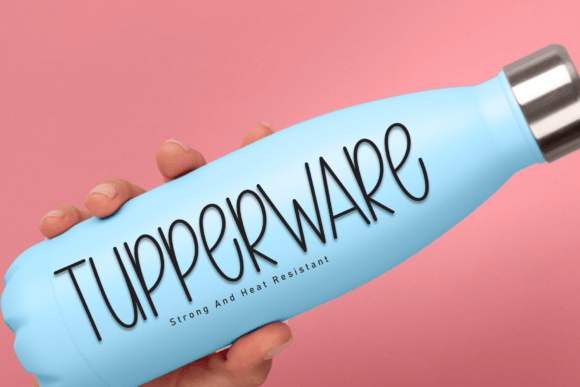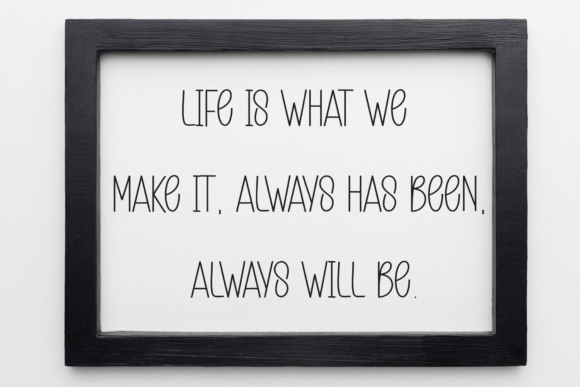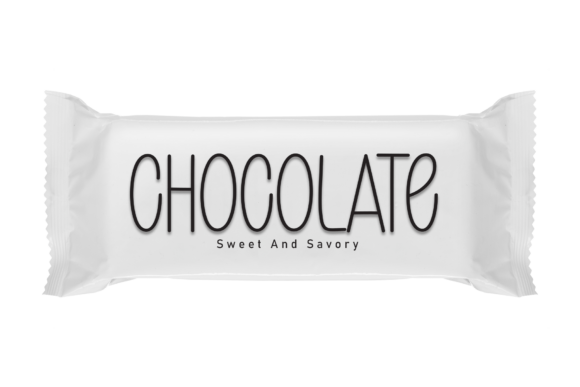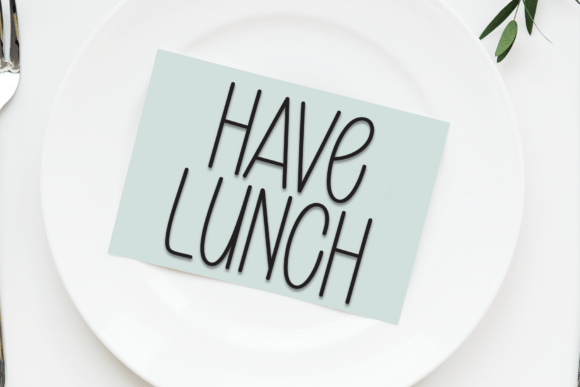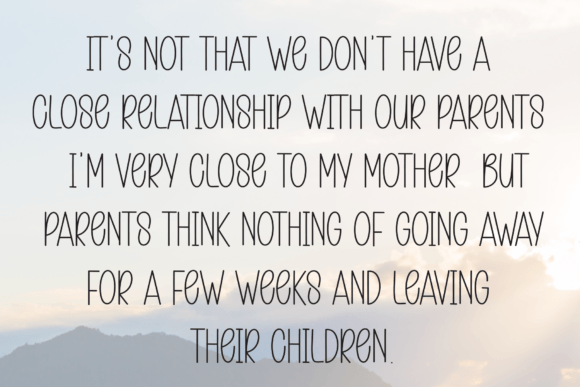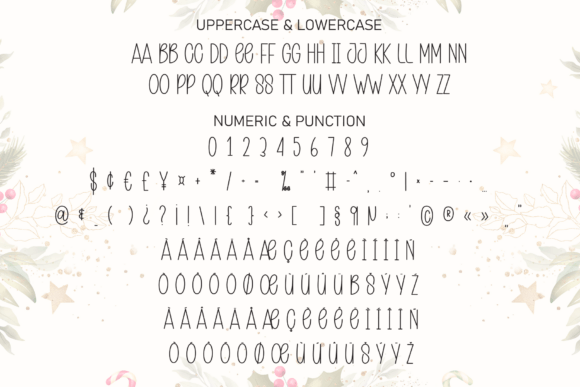
Introducing December Font: A Delightful Handwritten Display Font
Are you looking for a font that embodies charm and fun? Do you want to add a sprinkle of joy to your designs? Look no further than December Font, a delightful and approachable handwritten display font that’s perfect for crafting enchanting wedding invitations, cards, and countless other designs.
What is December Font?
December Font is a beautifully designed handwritten display font that’s sure to capture the hearts of designers and crafters alike. Its lovable style makes it the perfect companion for creating designs that demand a personal touch. Whether you’re working on a wedding invitation, a greeting card, or any other project that requires a dash of personality, December Font is the perfect choice.
Key Features of December Font
- Handwritten style: December Font boasts a beautiful handwritten style that’s both elegant and playful.
- Delightful and approachable: The font’s lovable style makes it perfect for creating designs that are charming and fun.
- Perfect for wedding invitations and cards: December Font is ideal for crafting enchanting wedding invitations, cards, and other designs that demand a sprinkle of joy.
- Easy to read: The font is clear and easy to read, making it perfect for use in a variety of designs.
- Versatile: December Font can be used for a wide range of designs, from wedding invitations and cards to posters, flyers, and more.
Why Choose December Font?
There are many reasons why December Font stands out from the crowd. Here are just a few:
- Unique style: December Font has a unique and distinctive style that’s sure to set your designs apart.
- High-quality design: December Font is designed to the highest standards, ensuring that your designs look professional and polished.
Design Ideas Using December Font
December Font is a versatile font that can be used for a wide range of designs. Here are a few ideas to get you started:
- Wedding invitations: December Font is perfect for crafting enchanting wedding invitations that set the tone for the big day.
- Greeting cards: The font is ideal for creating greeting cards for special occasions, such as birthdays, anniversaries, and holidays.
- Posters and flyers: December Font can be used to create eye-catching posters and flyers that grab attention.
- Social media graphics: The font is perfect for creating social media graphics that are fun and engaging.
December Font is a delightful and approachable handwritten display font that’s perfect for designers and crafters who want to add a sprinkle of joy to their designs. With its lovable style, ease of use, and versatility, December Font is a great choice for anyone looking for a high-quality font that won’t break the bank. So why wait? Download December Font today and start creating your own enchanting designs!